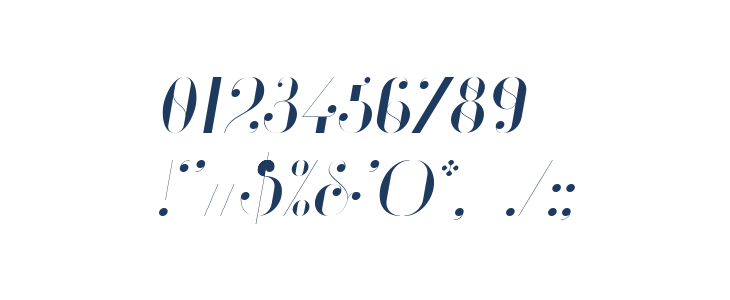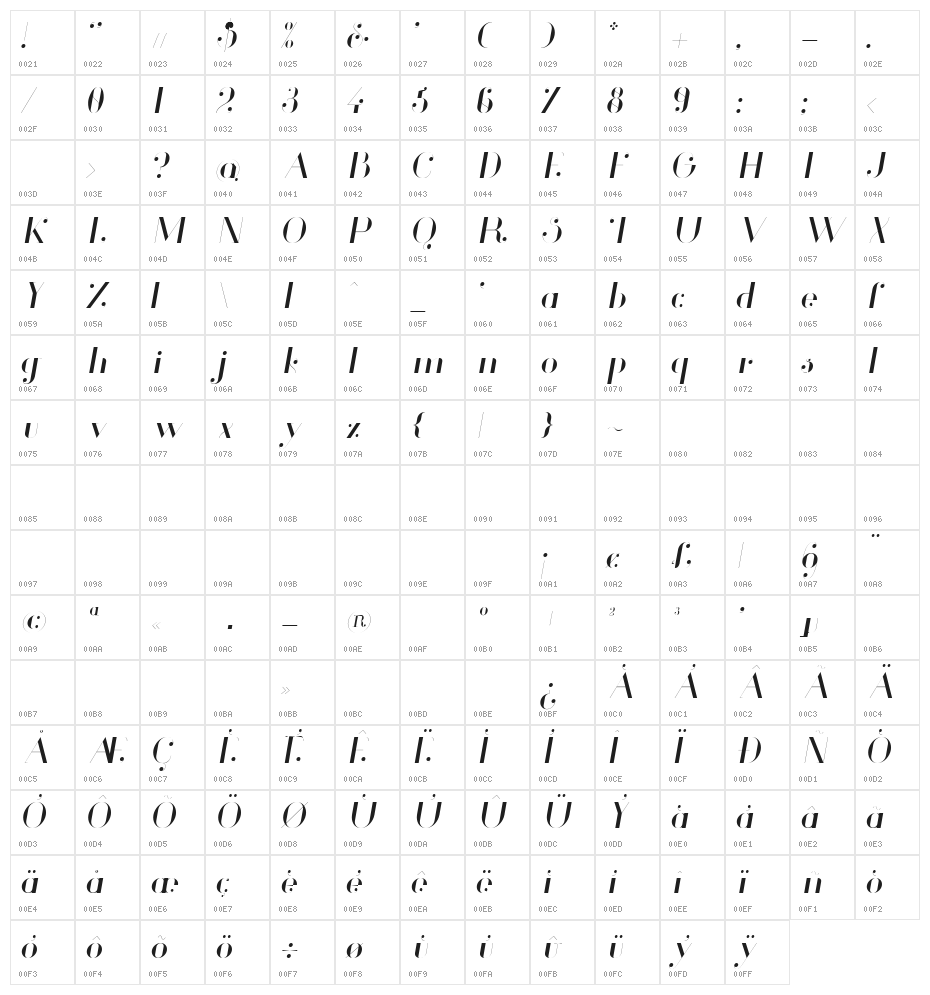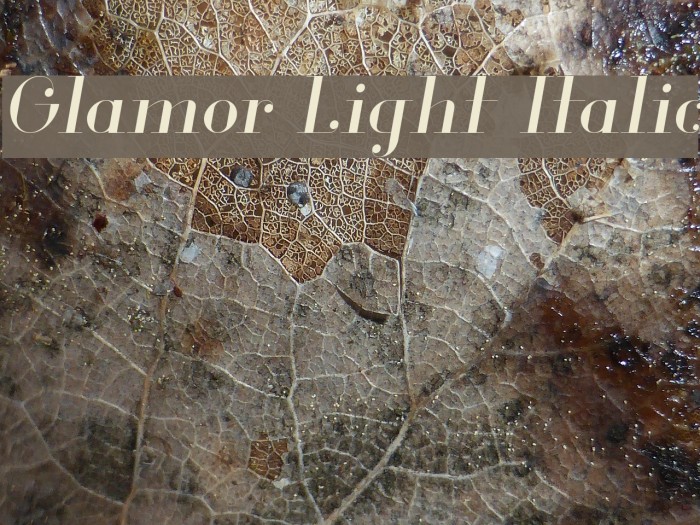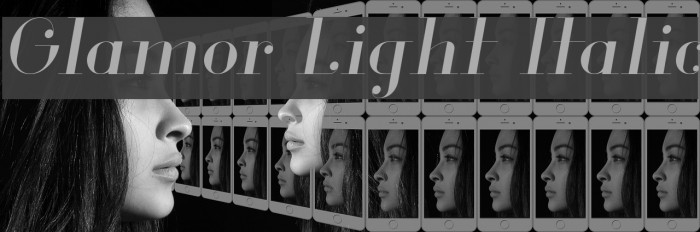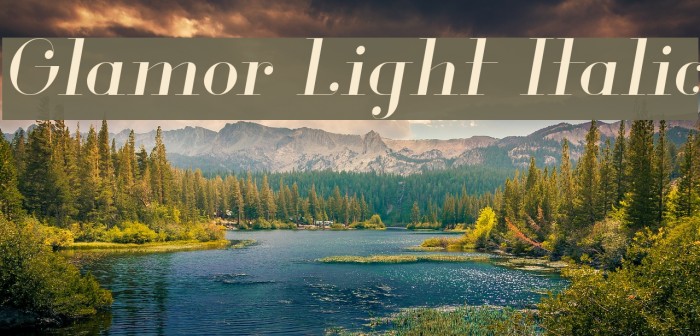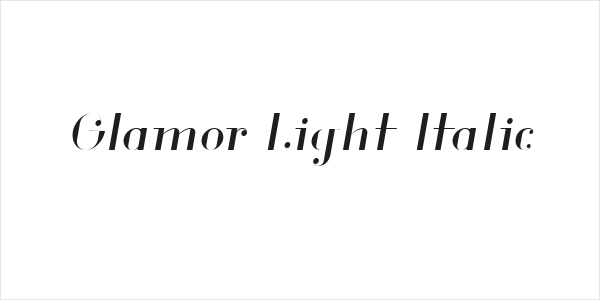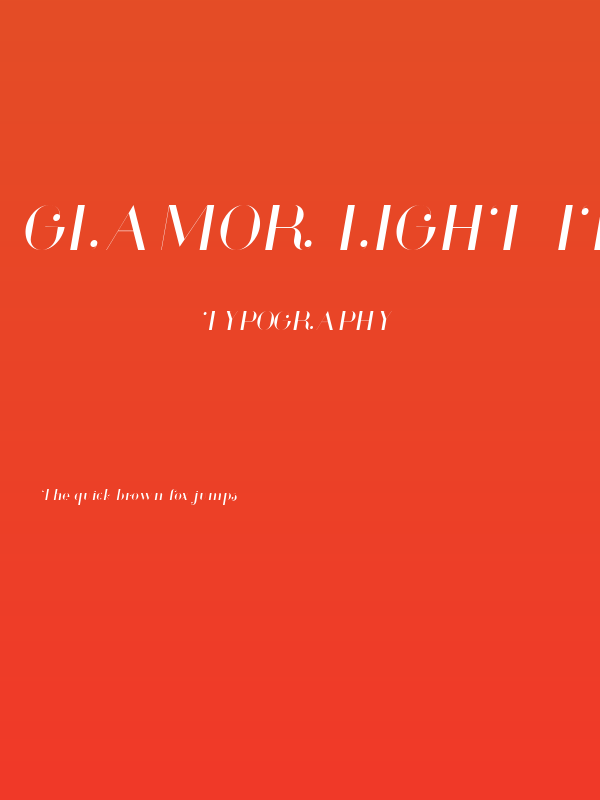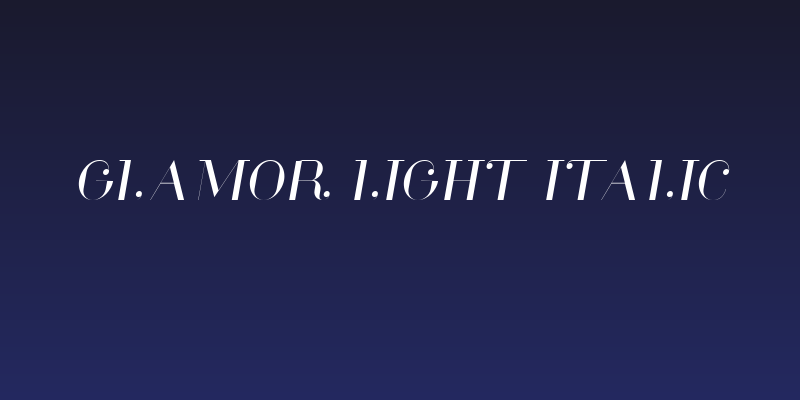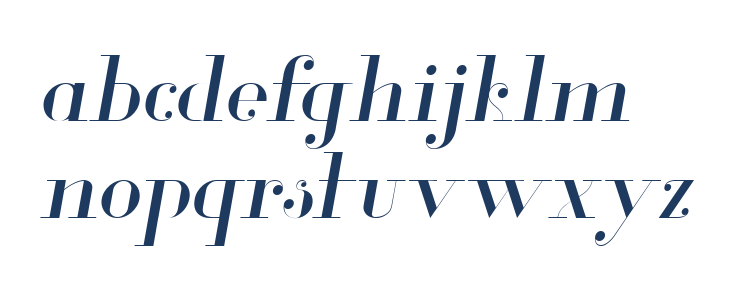
Glamor Light Italic Font
Glamor Light Italic Description
This elegant and sophisticated font features a light, italicized style with high contrast between thick and thin strokes. The characters are elongated and graceful, with a distinct slant that adds a sense of movement and fluidity. The uppercase letters are tall and refined, while the lowercase letters maintain a consistent style, enhancing readability. The numerals are stylishly designed, complementing the overall aesthetic. Special characters are crafted with the same attention to detail, making this font suitable for a variety of design applications.